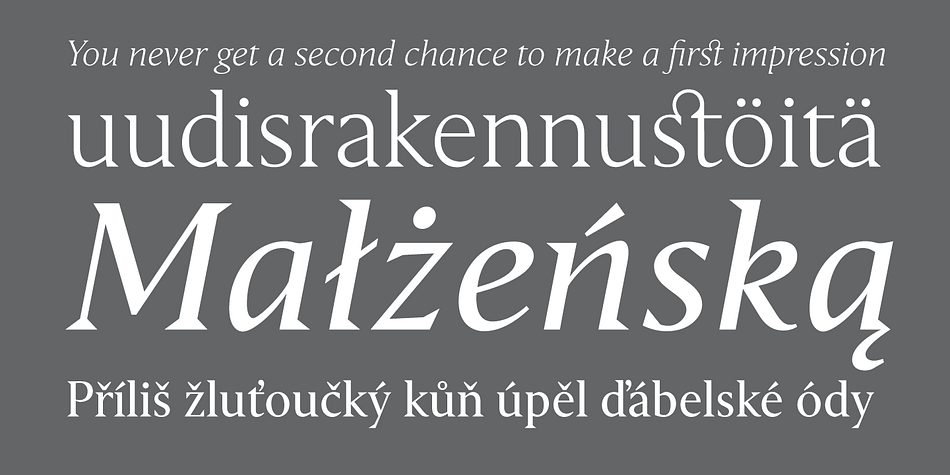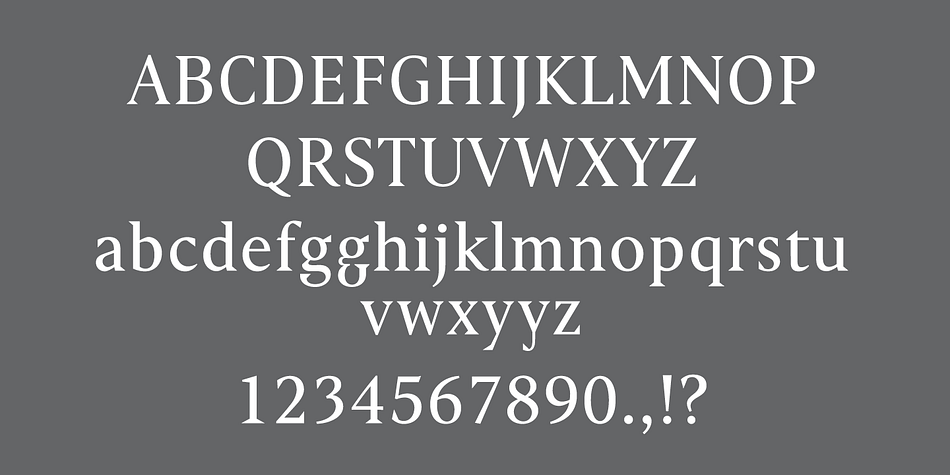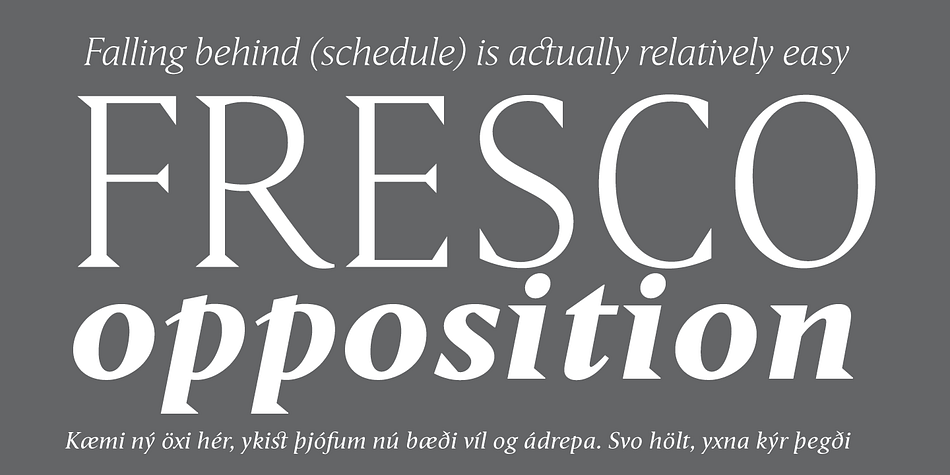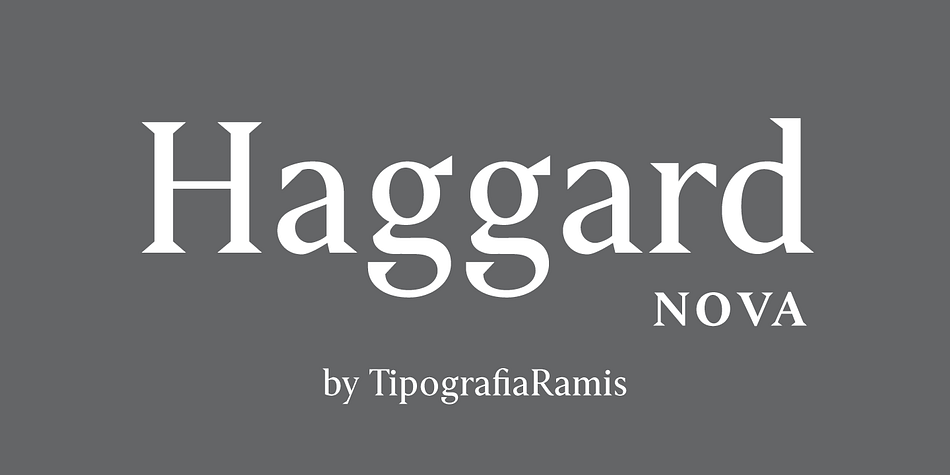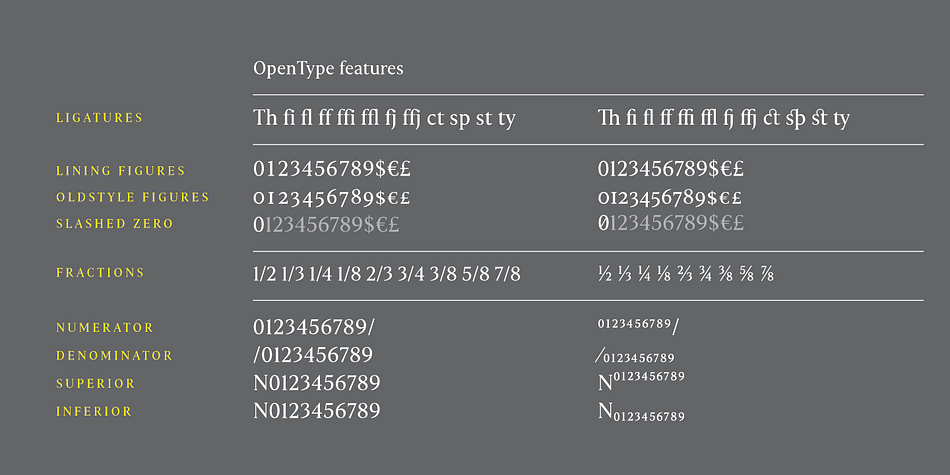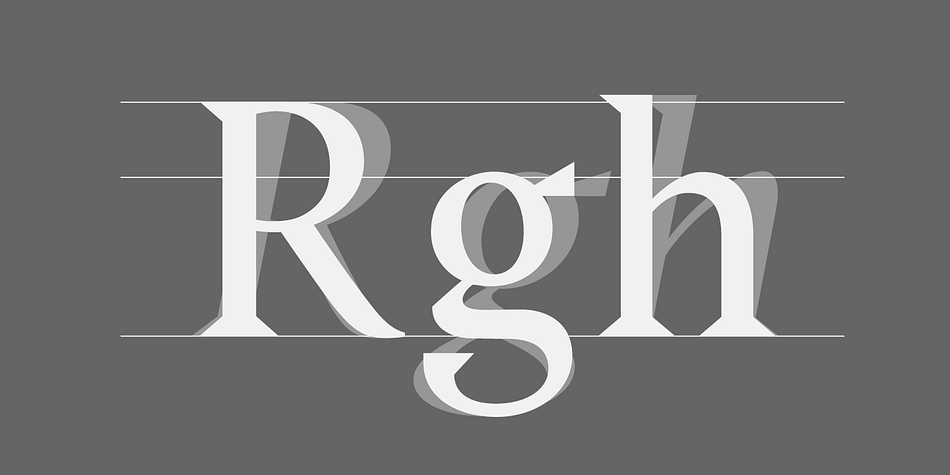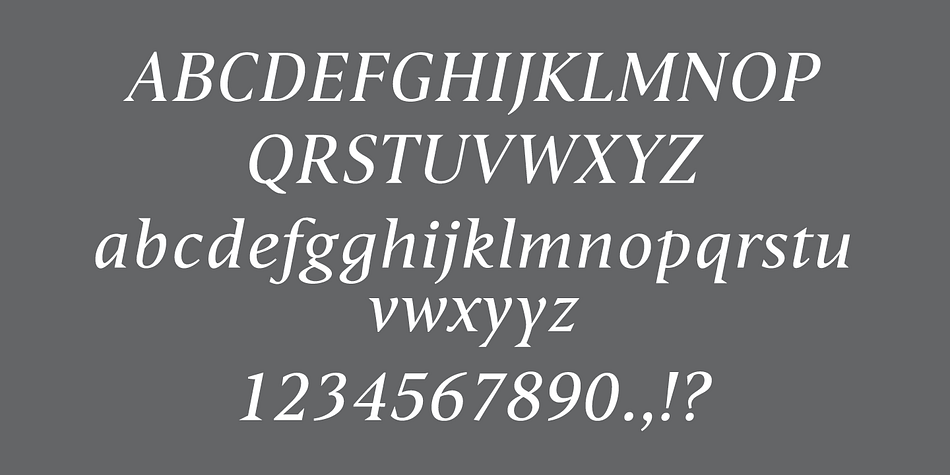
Designed by Ramiz Guseynov, Haggard Nova is a serif font family. This typeface has eight styles and was published by TipografiaRamis.
Haggard Nova is the new edition of Haggard fonts (designed in 2011). The new typeface is an upgraded version of an old wedge serif font, with careful refinements to glyph shapes, and the extension of glyph amounts which enabled support of more Latin languages.
Haggard Nova is released in eight styles with small caps, and true italics, and contains OpenType features. This typeface can be used for editorials and print designs, as well as text and headlines.